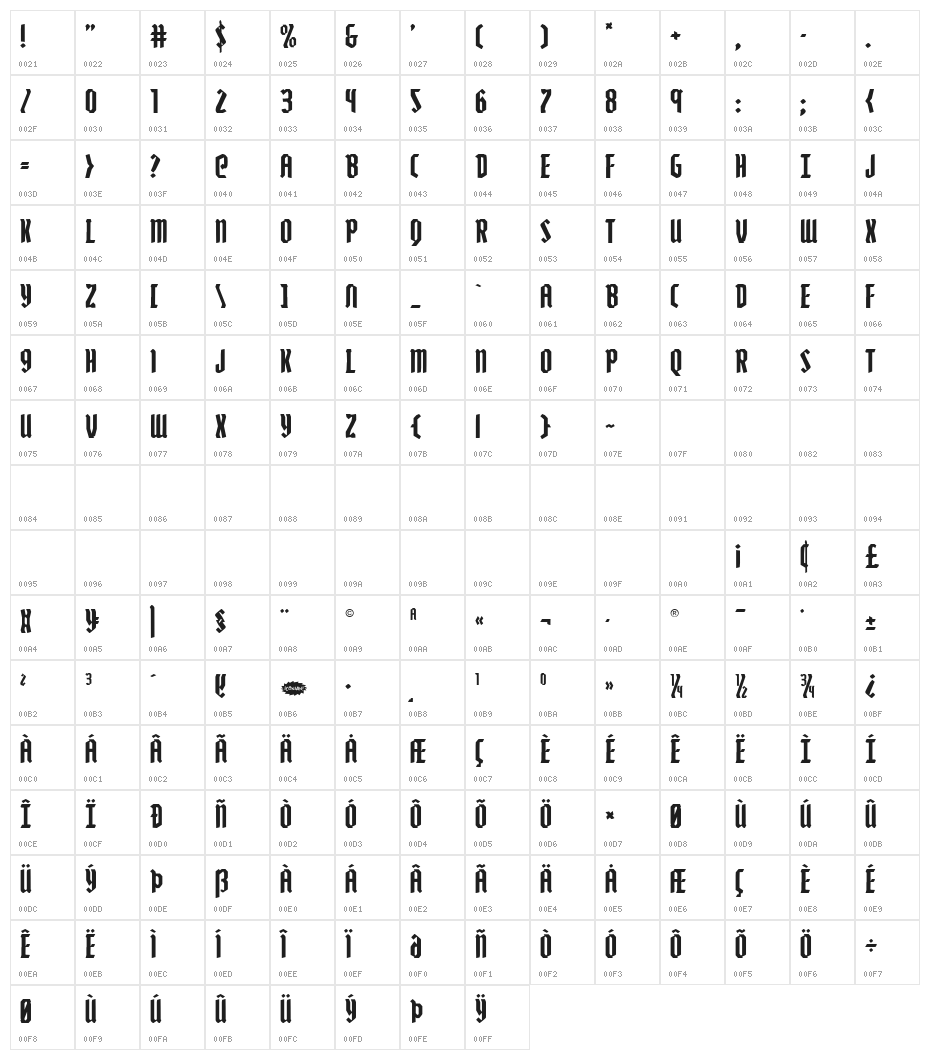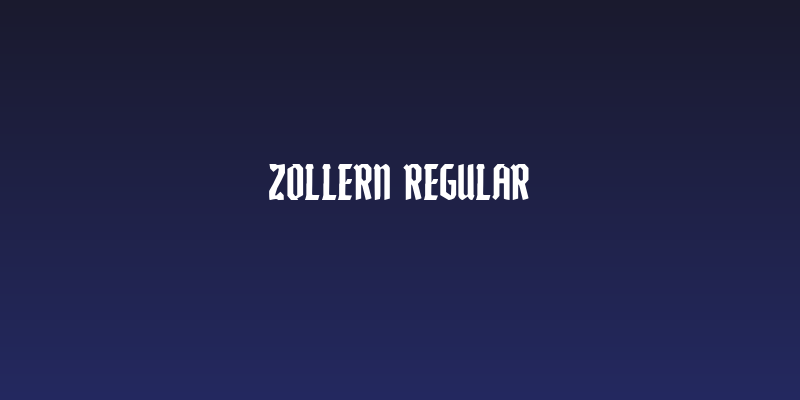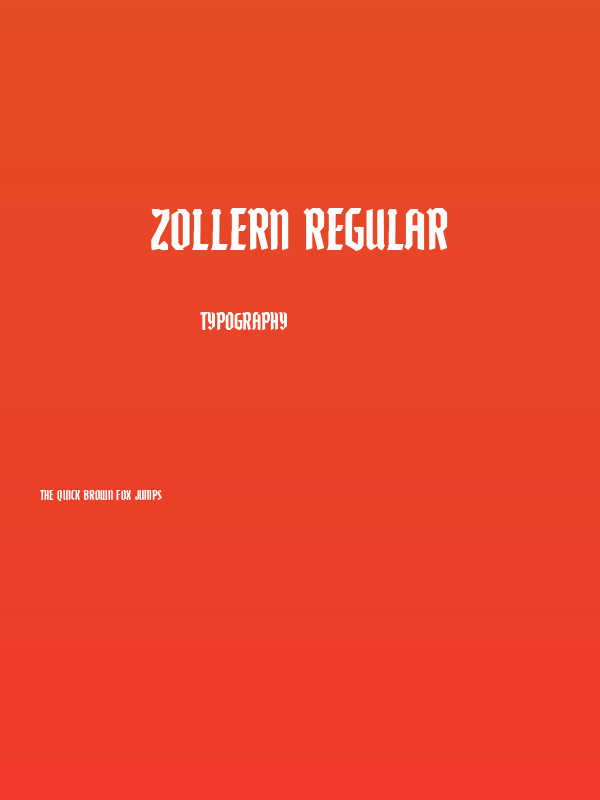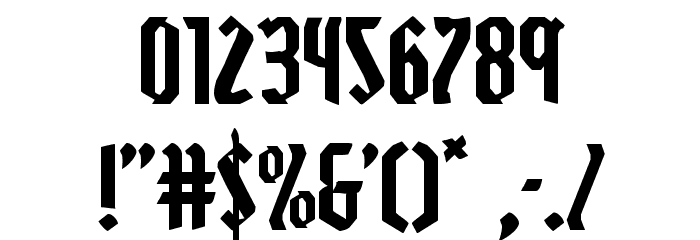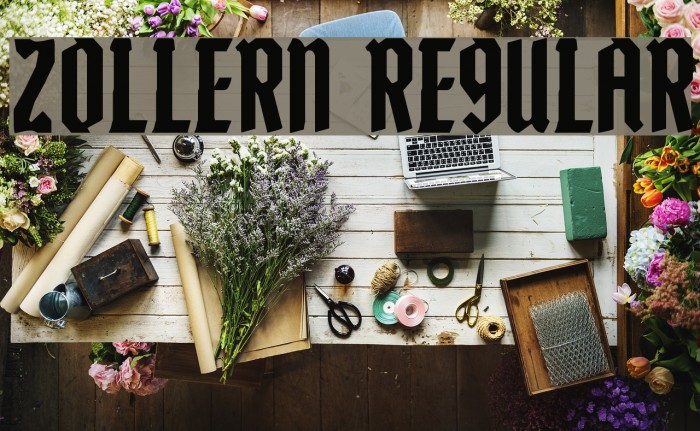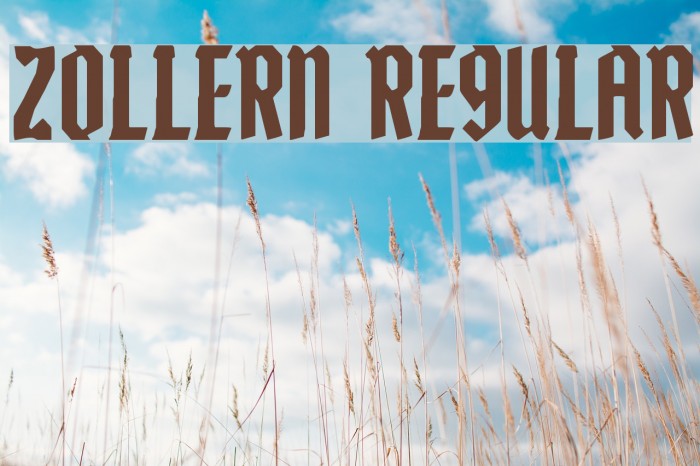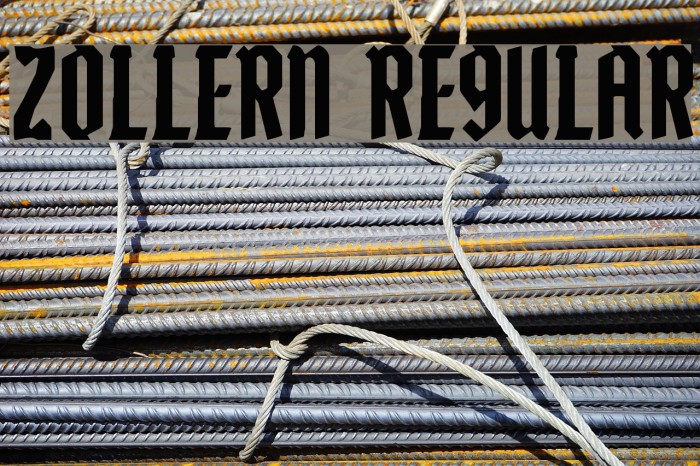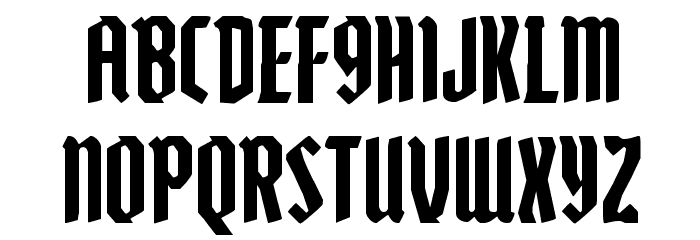
Zollern Regular Font
Zollern Regular Description
This font features a bold and striking design with sharp, angular edges and a strong presence. The characters are tall and narrow, giving it a condensed appearance. The uppercase letters are particularly prominent, with a gothic influence that adds a sense of drama and intensity. The numbers and special characters maintain the same bold style, ensuring consistency across all elements. This font is perfect for making a statement, with its high contrast and distinctive style that draws attention.
| Proposed Projects | Ideal for use in posters, logos, and branding projects that require a strong and dramatic visual impact. |